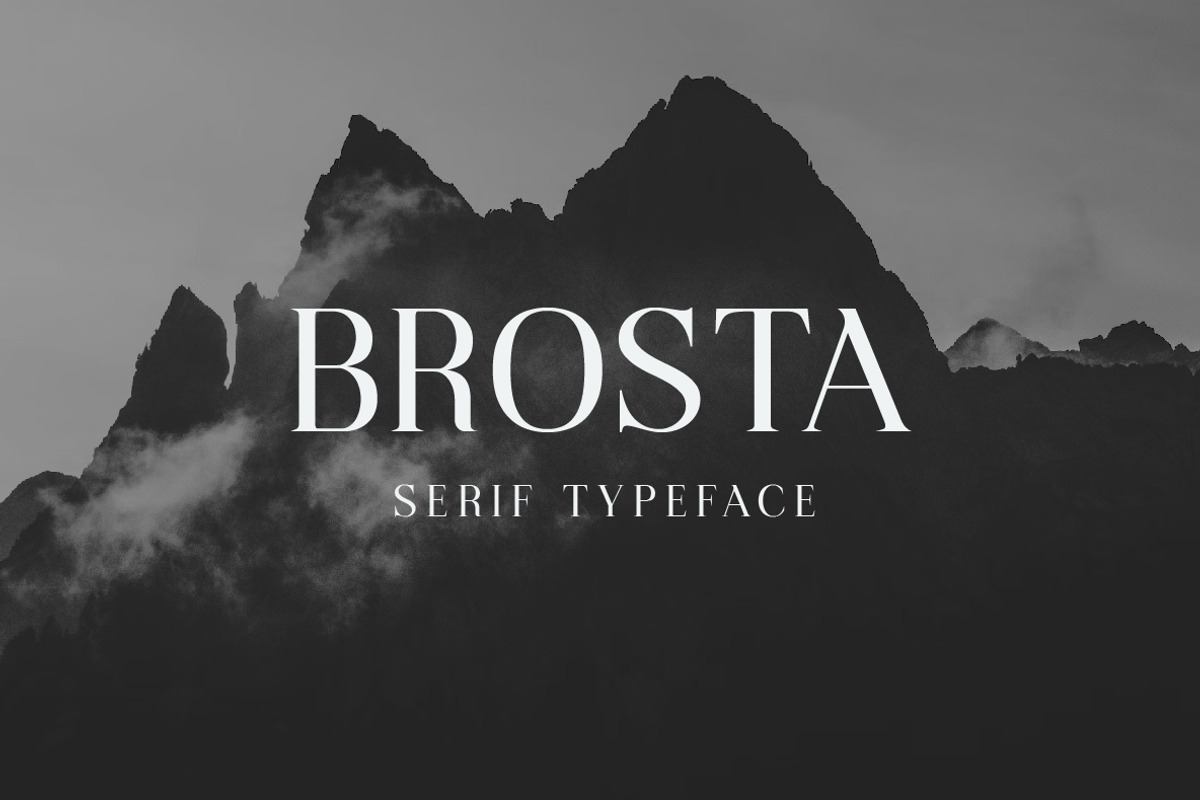
Make a bold, sophisticated statement with Brosta Serif Fonts Free Download — a modern serif typeface that combines classic structure with a fresh, contemporary twist. With its sharp serifs and confident curves, Brosta is perfect for branding, editorial layouts, fashion magazines, product packaging, and upscale web design.
This font radiates authority and style, bringing a sense of refinement to any project. It includes a full set of uppercase and lowercase letters, numbers, punctuation, and multilingual support, giving designers the tools they need to create polished, professional visuals.